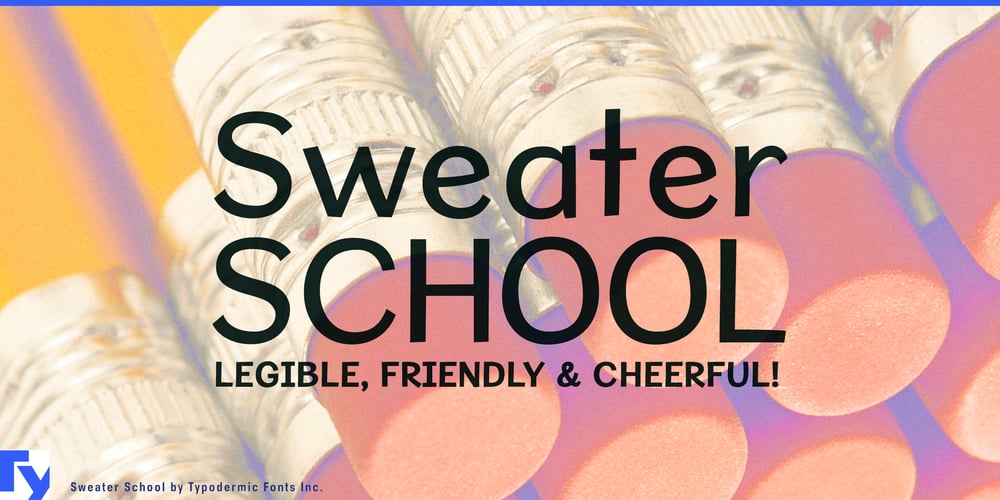
Sweater School Font Family was designed by Ray Larabie and published by Typodermic. Sweater School contains 4 styles and family package options. Wrap your designs in the cozy embrace of Sweater School, a typeface that feels like a warm hug for your eyes. This is a trip down memory lane, evoking the comforting scrawl of your favorite elementary school teacher, but with a postgraduate degree in legibility and charm.Sweater School takes the beloved handwritten style of classroom chalkboards and notebook margins, and elevates it to typographic excellence. Its casual pen strokes and relaxed letterforms aren’t just easy on the eyes—they’re a visual lullaby, soothing the reader into a state of receptive comfort. It’s as if each letter has been knitted with care, creating a text that’s as inviting as a hand-crafted cardigan. But don’t let its friendly demeanor fool you. Sweater School is as versatile as a Swiss Army knife in a knitting basket. With four weights and matching italics, it’s ready to tackle everything from cozy café menus to heartwarming children’s books. Its improved readability ensures your message comes through loud and clear, whether you’re crafting a neighborly newsletter or designing a feel-good ad campaign.Sweater School’s real magic lies in its charming alternate characters. The playful “J”, whimsical “I”, and quirky “q” are like finding colorful buttons on a thrift store sweater—unexpected delights that add personality to your typographic wardrobe. And with OpenType stylistic alternates, switching up your look is as easy as changing scarves. This typeface isn’t just bilingual—it’s a linguistic polymath, fluent in a dizzying array of Latin-based European languages. From the sun-drenched coasts of Portugal to the snowy peaks of Norway, Sweater School speaks the universal language of comfort and approachability.Choose Sweater School when your design needs to feel like home. It’s perfect for brands that want to cultivate trust, for educational materials that aim to engage rather than intimidate, or for any project that could benefit from a dose of handcrafted warmth in our digital world. In a typographic landscape often dominated by stark minimalism and cold precision, Sweater School stands out like a beautifully mismatched pattern. It doesn’t just communicate—it converses, inviting readers to curl up with your words and stay awhile.So go ahead, slip into something more comfortable. Let Sweater School wrap your message in a layer of approachable charm. Because in a world that can sometimes feel a bit too crisp and starched, isn’t it time your typography felt like a favorite sweater—familiar, comforting, and always in style?